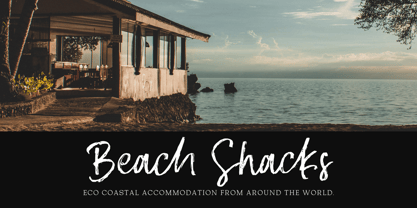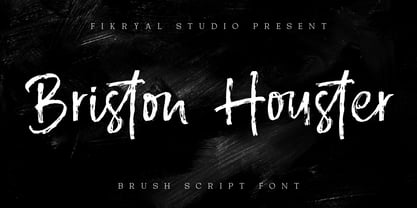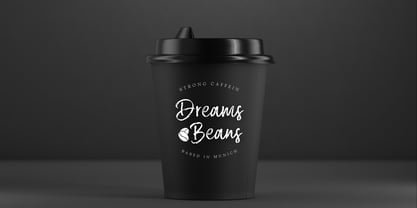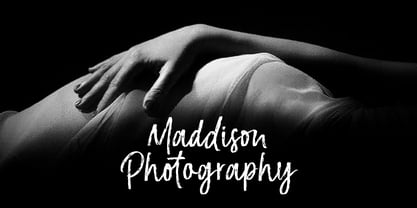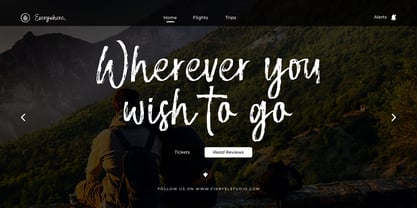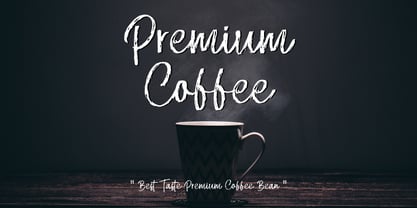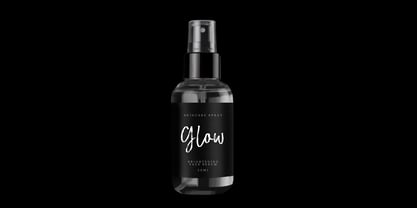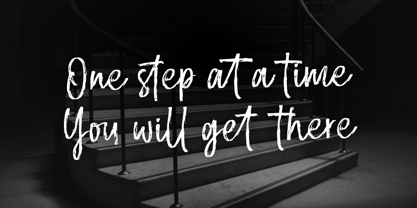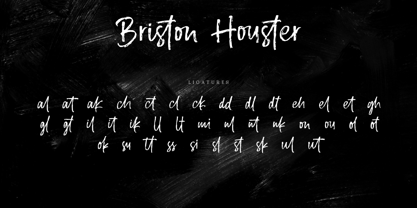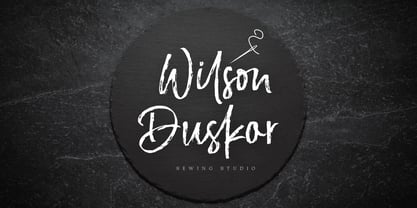
Briston Houster
The Briston Houster Font Family was designed by Muhammad Fikry and published by Fikryal. Briston Houster contains 1 styles. More about this family
Briston Houster is a bold and energetic brush script font designed to add a personal and dynamic touch to your creative projects. With natural brush strokes, a handcrafted aesthetic, and stylish ligatures, it’s perfect for designers looking to create eye-catching and authentic designs.
This font strikes the perfect balance between casual and polished, making it versatile enough for a variety of uses. Whether you’re working on branding, packaging, posters, or social media graphics, Briston Houster ensures your projects stand out with its unique charm and professional quality.
• Authentic Brush Style: Captures the texture and flow of real brush strokes for a natural, handwritten look.
• Elegant Ligatures: Thoughtfully designed ligatures create a seamless and harmonious connection between characters.
• Versatile Usage: Ideal for branding, logos, invitations, packaging, greeting cards, posters, and more.
• Multilingual Support: Includes characters for multiple languages, catering to a global audience.
• Bold headlines that grab attention.
• Adding a personal touch to your branding or packaging designs.
• Crafting stunning social media posts or promotional materials.
• Full uppercase and lowercase letters.
• Numbers, punctuation, and symbols.
• Ligatures for enhanced style and flow.
• Multilingual characters.
Take your designs to the next level with Briston Houster – a brush script font that combines creativity, authenticity, and versatility.